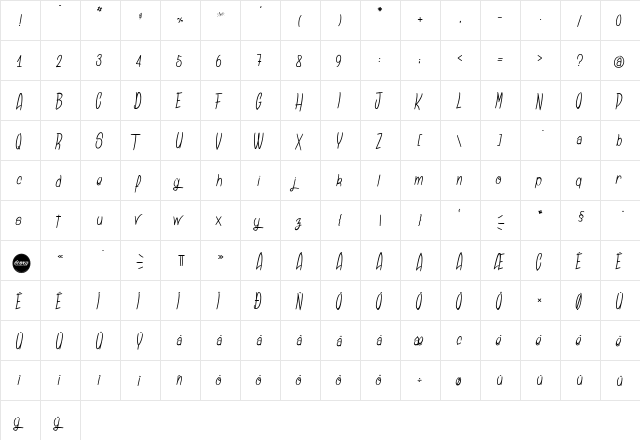
Sansaul Petronika Regular
Design Context for Sansaul Petronika Typeface
Sansaul Petronika is a composed and adaptable typeface that performs quietly and consistently across a wide range of design contexts.